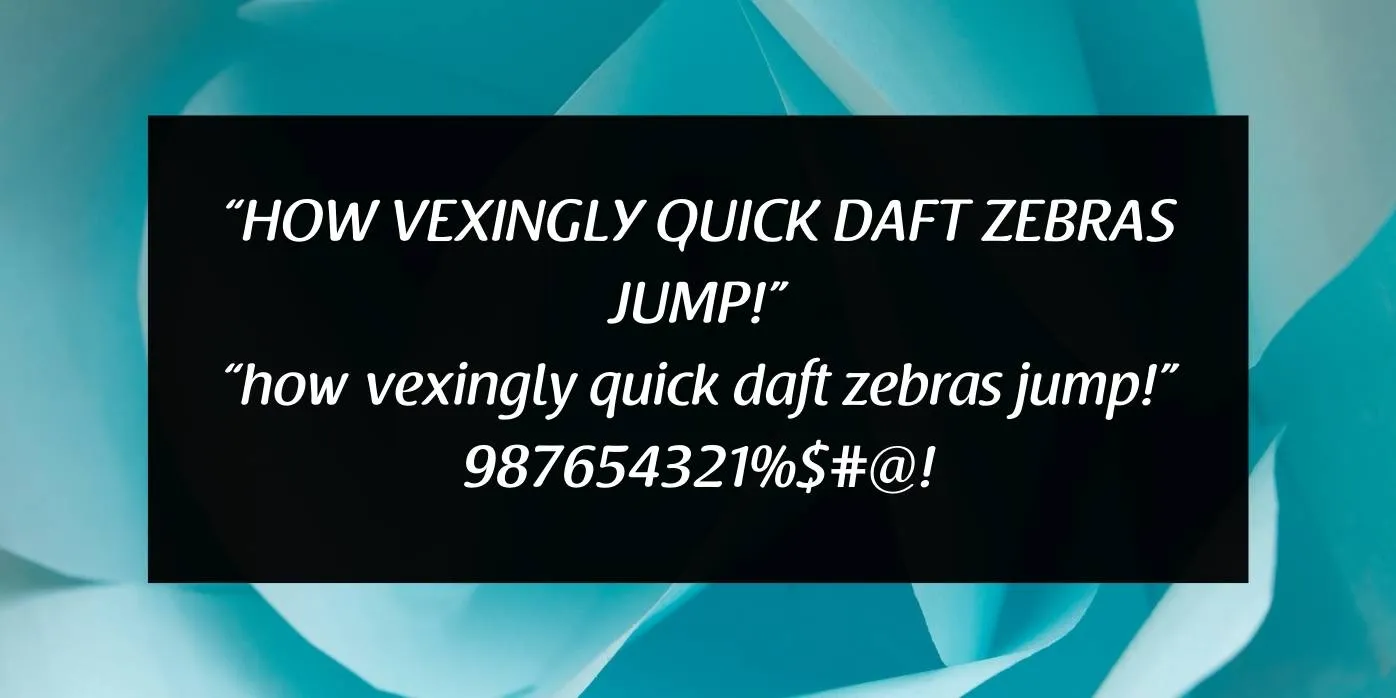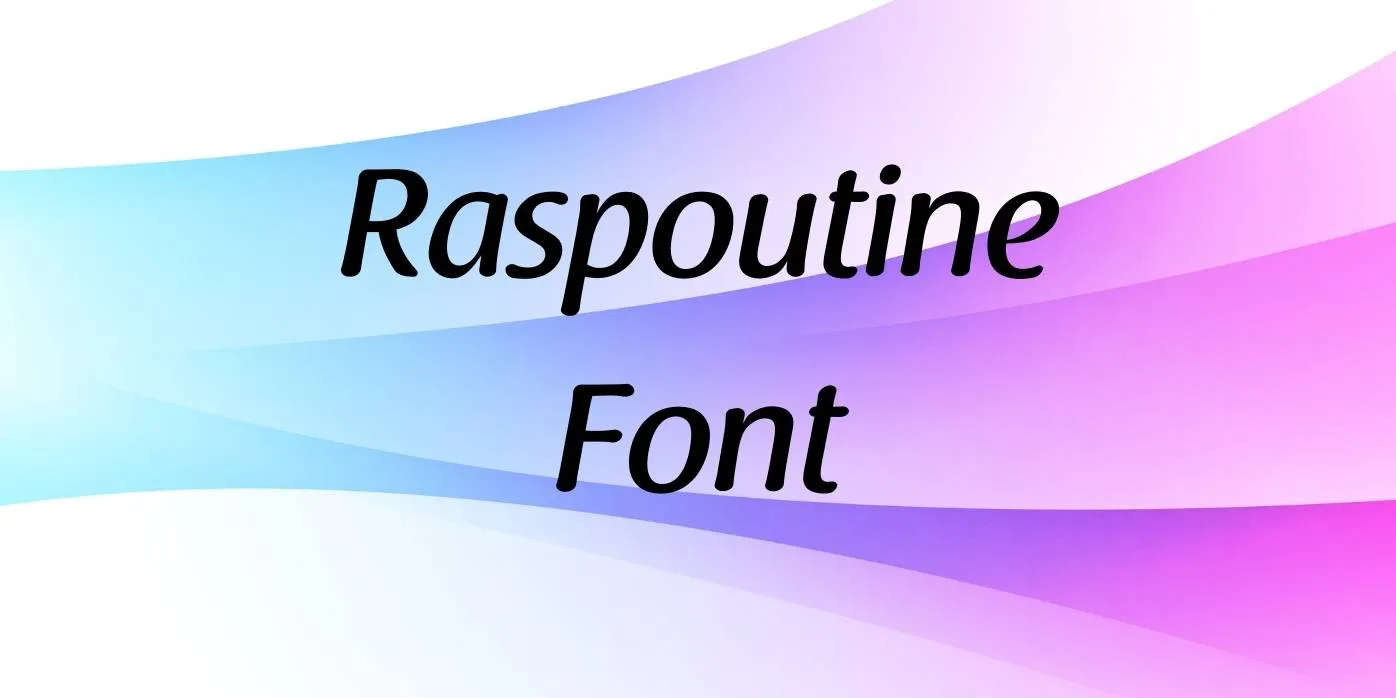
Raspoutine Font
Raspoutine is a sans-serif font inspired by the work of the Russian artist and designer Mikhail Vrubel. The font was created by Russian-type designer Vladimirov Andrey. This font is a great choice for designers looking for a bit of personality. This Font was named after the famous Russian ballet dancer Vaslav Nijinsky, who was often referred to as the “King of the Dance.” Nijinsky was known for his athleticism, artistry, and innovation, and is considered one of the greatest dancers of all time.
The Font has a unique look that is perfect for headlines and titles. The bold style is great for making statements, while the regular style is more versatile and can be used for body text. It is also known for its immense language support same as the athletic font and it can support many different international alphabets.